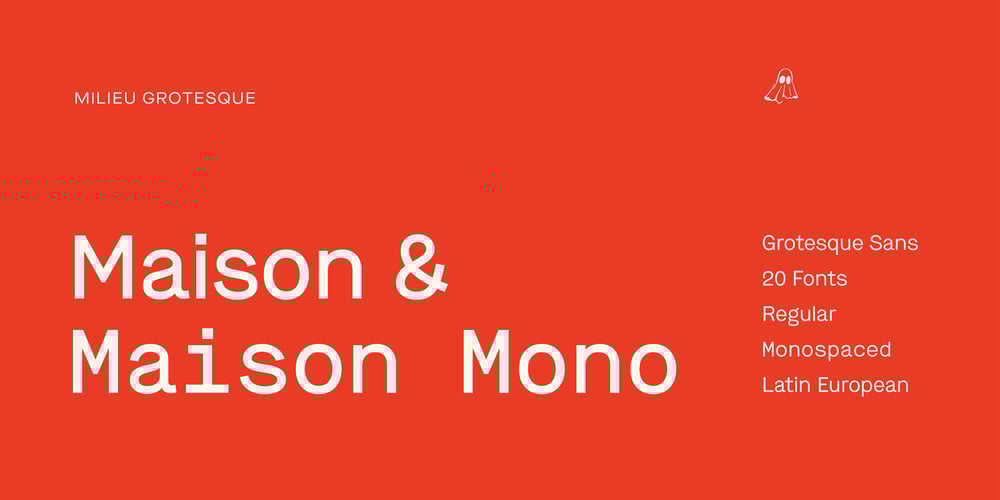
Maison Font Family was designed by Timo Gaessner and published by Milieu Grotesque. Maison contains 20 styles and family package options. Maison is a mono-lined grotesque constructed using rigid elements to achieve a minimalist industrial feel in homage to the early twentieth century modernist design concepts.Originally created as a mono-spaced typeface family—with less optical corrections than its successor Maison Neue—Maison has been further developed to work equally in both mono-spaced and proportional alignments.